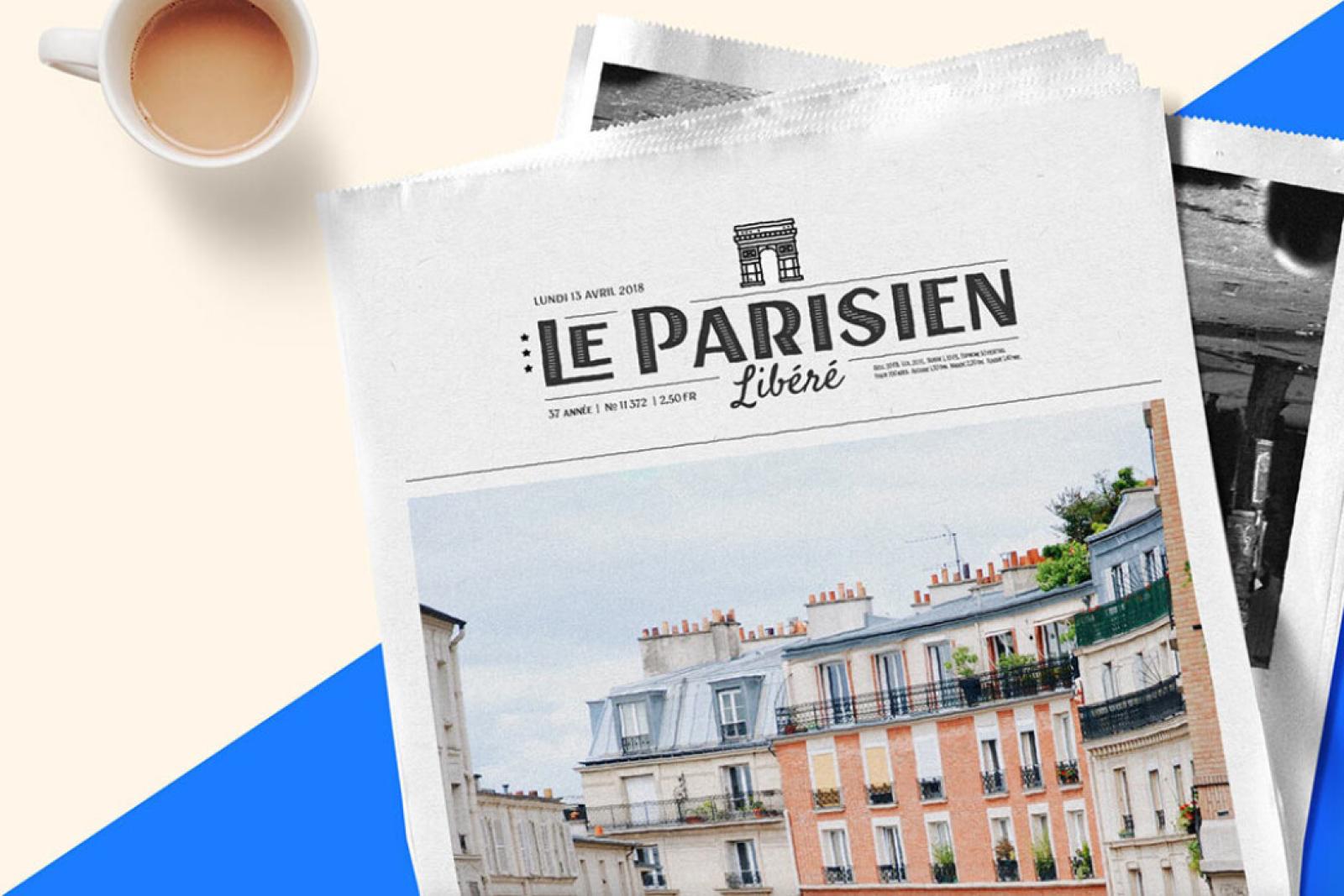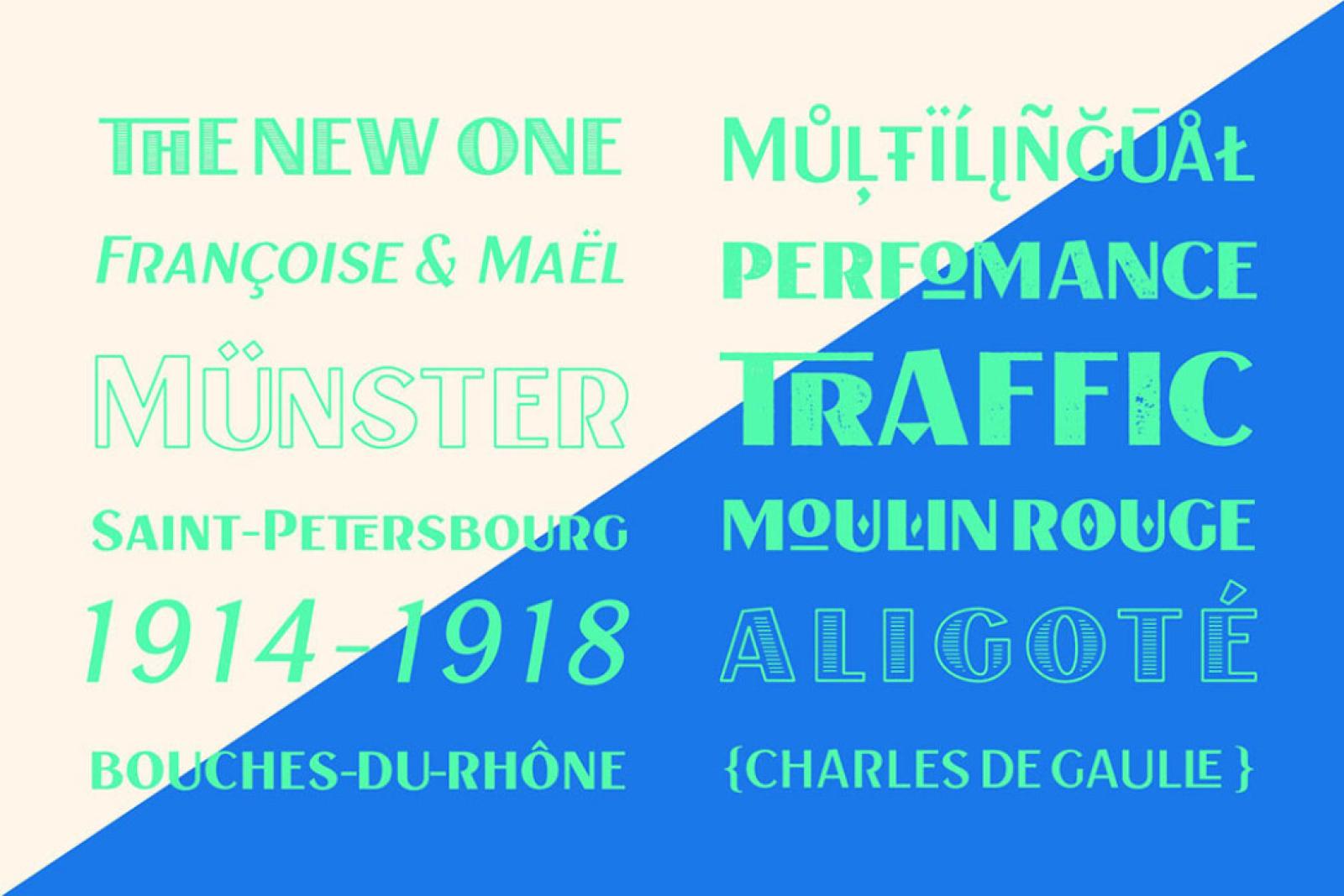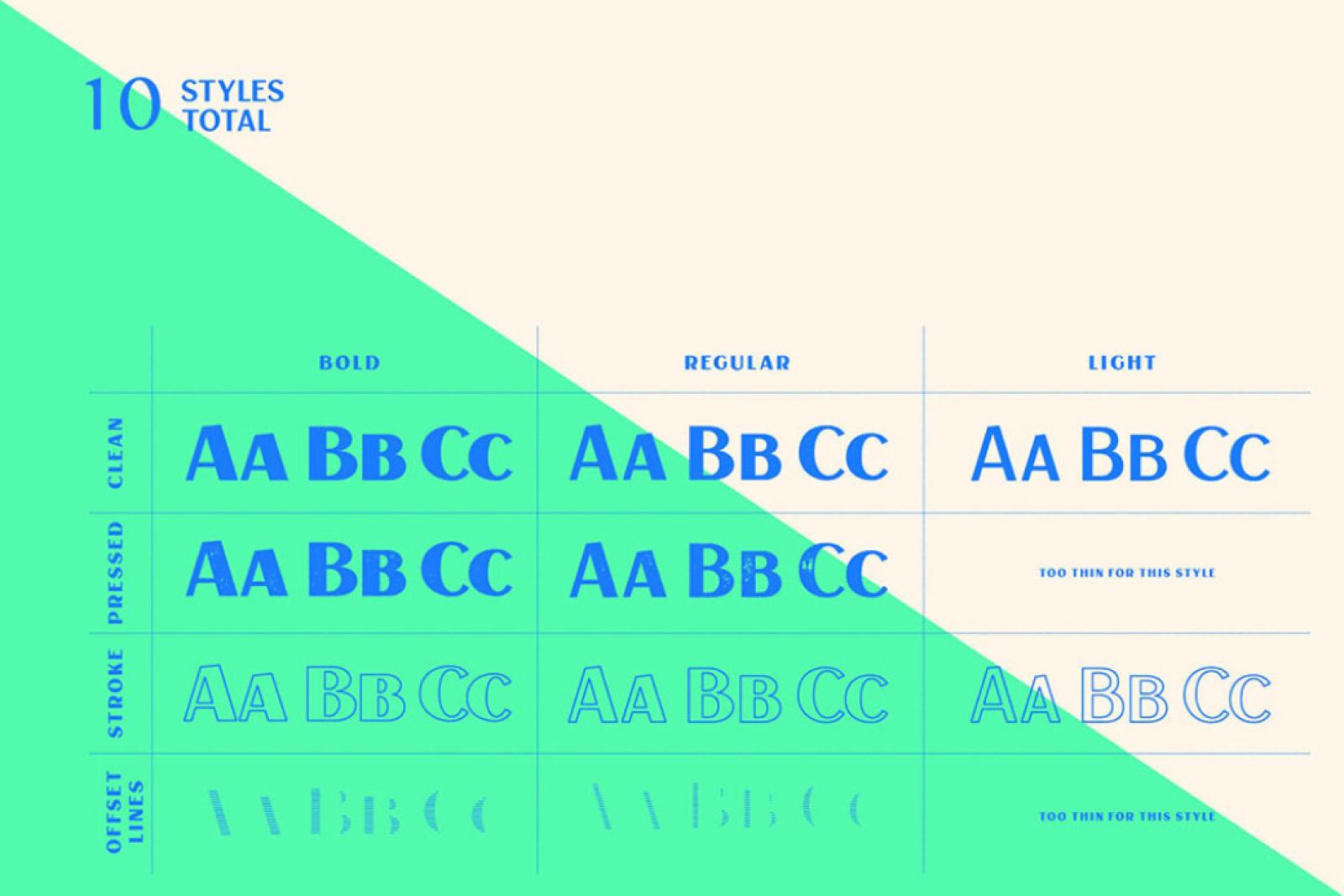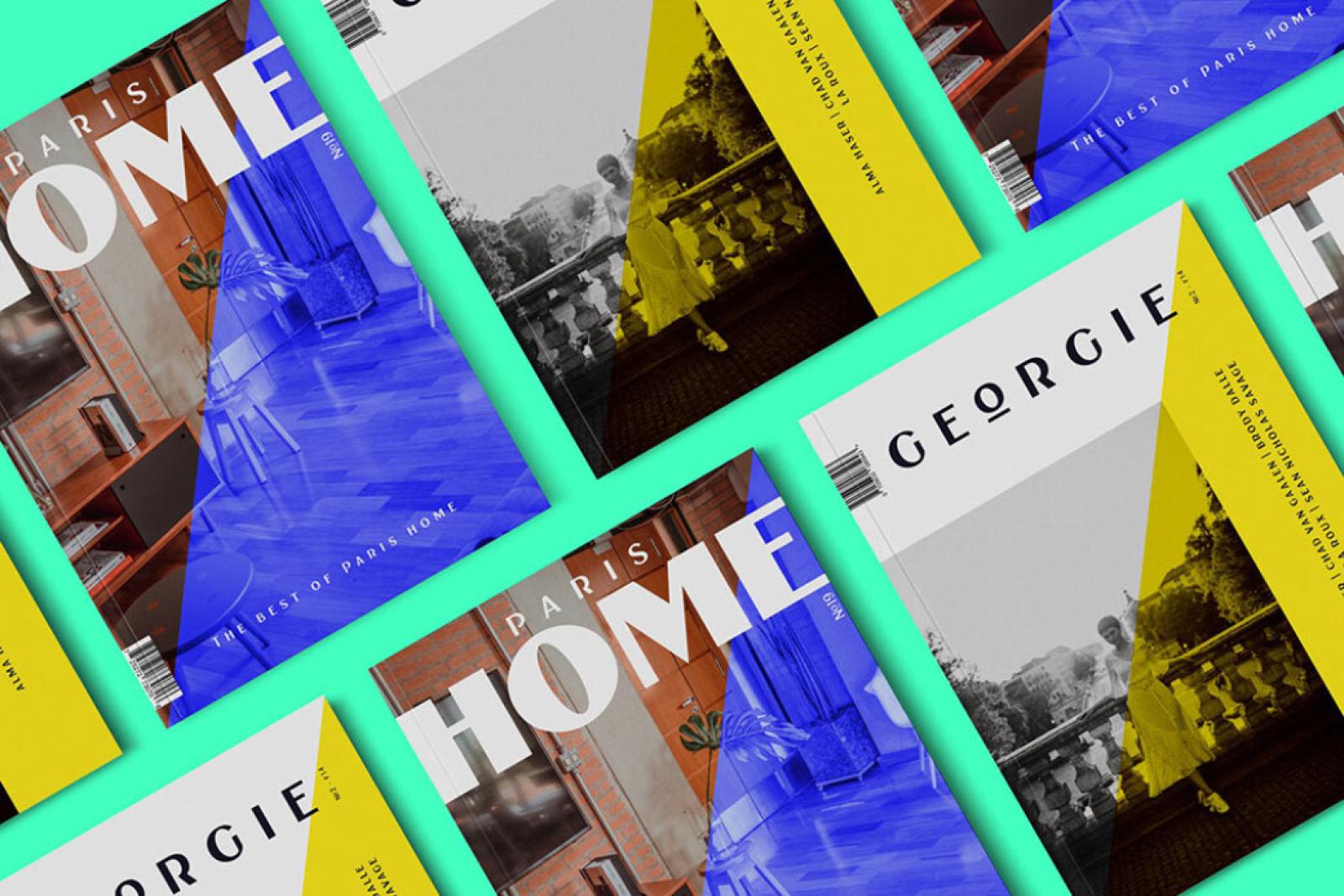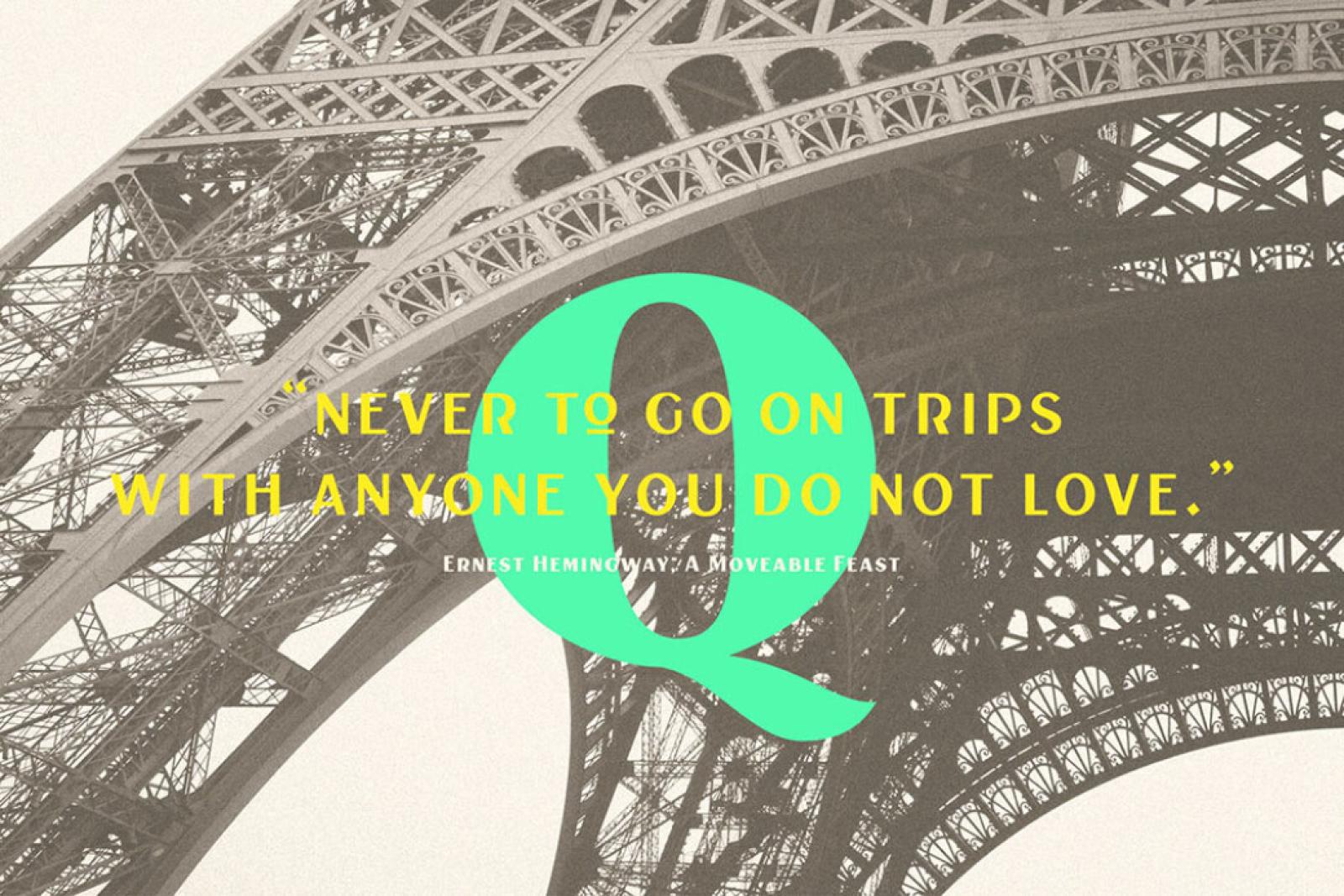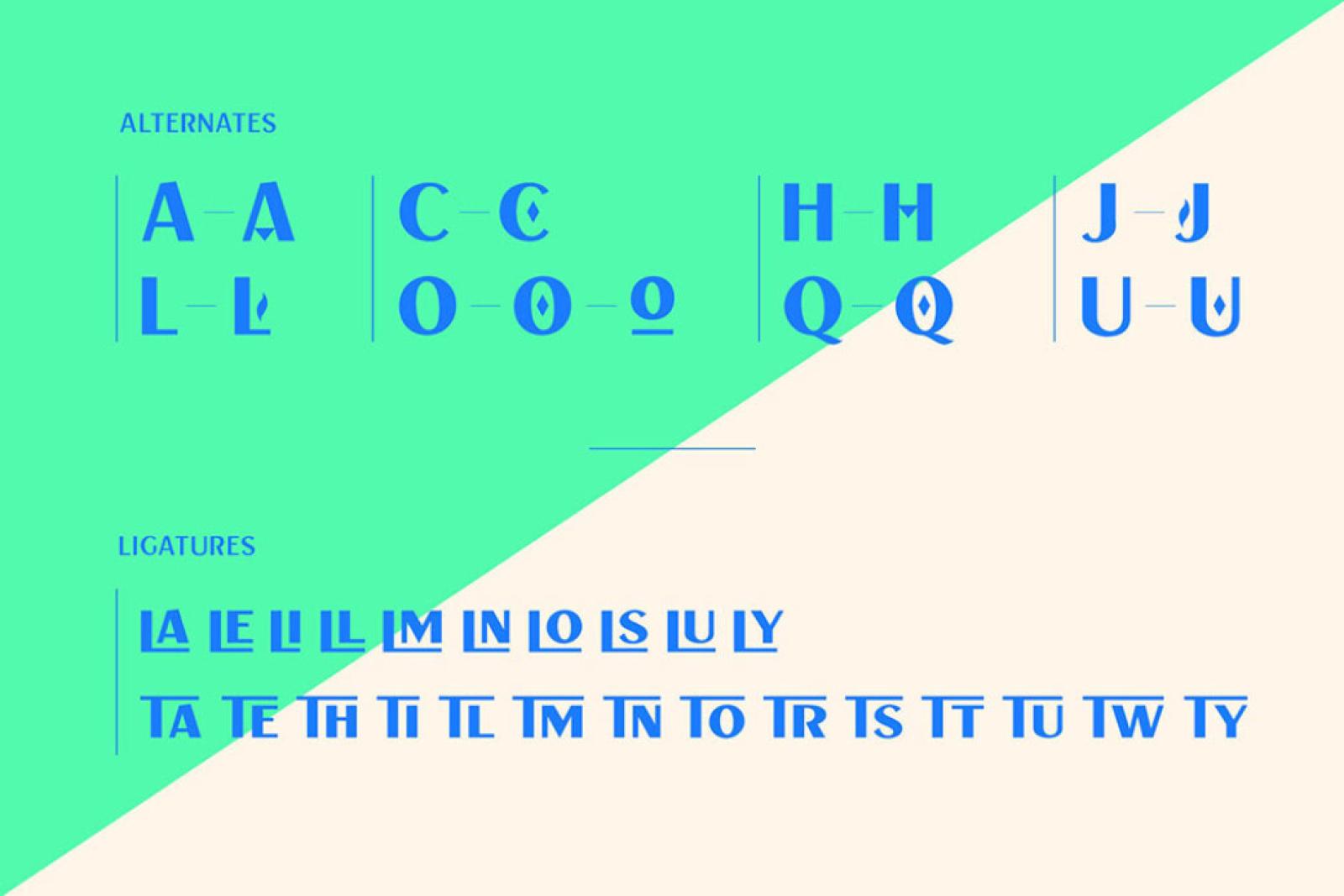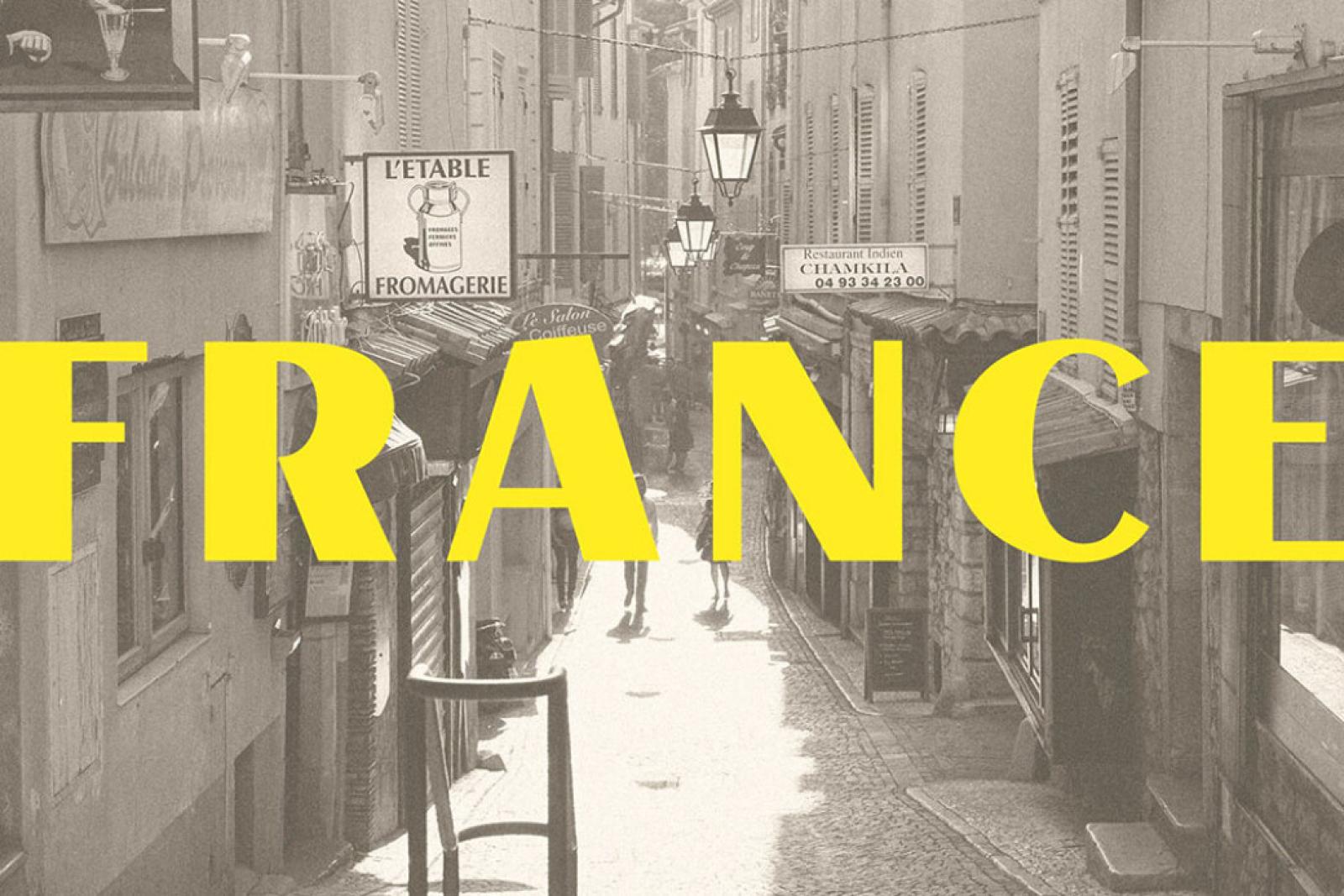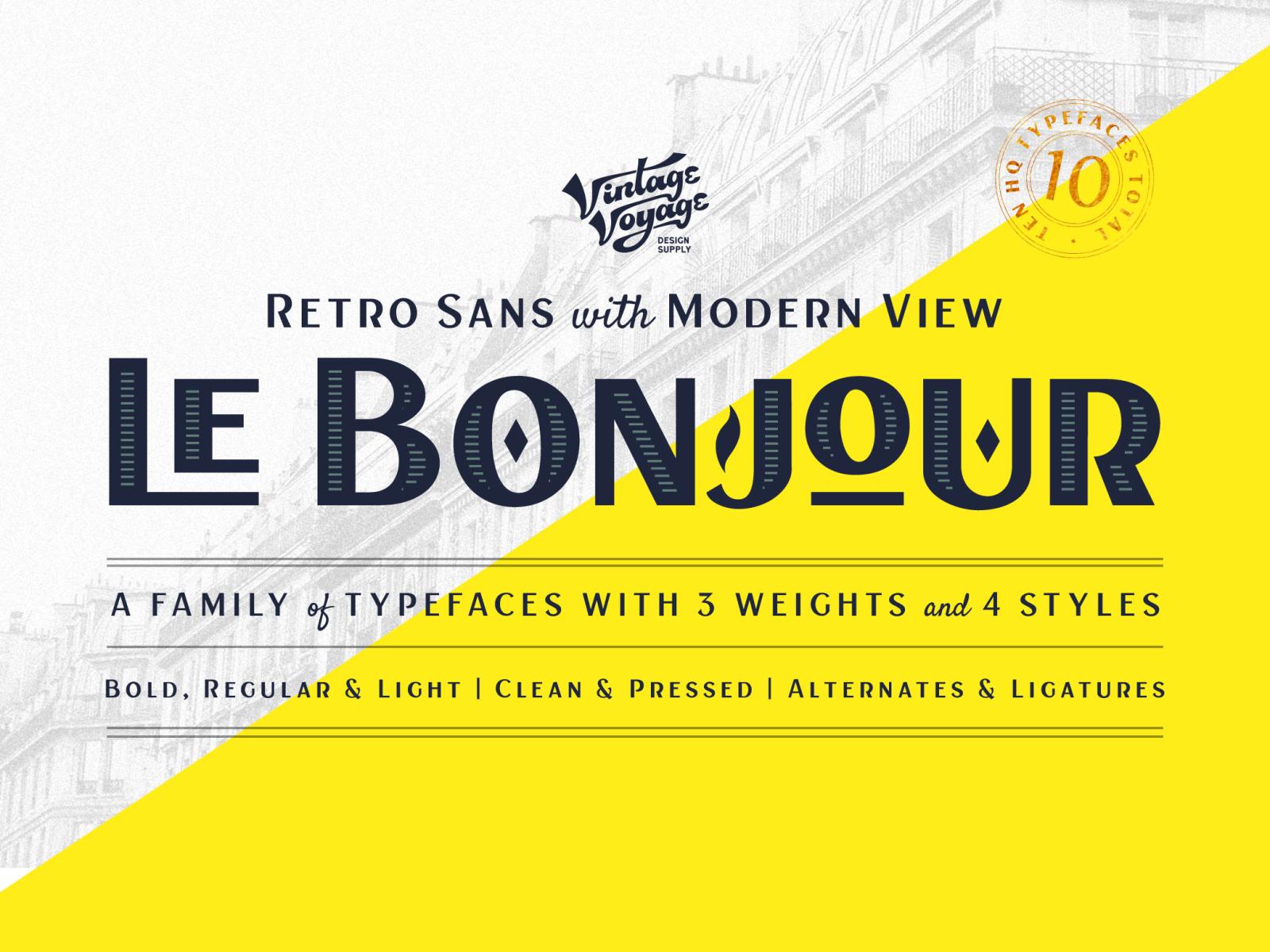
Le Bonjour Font Family
Here's sans serif saying its elegant 'Bonjour' with every single stroke. Oh, and there's a whole font family at your service, ready to become the gold of your collection!
Classic retro sans with modern tones, where contrasting vertical and horizontal lines are coexisting in harmony. This kit can be anything you want: the source of bold and elegant or light and airy style. Le Bonjour has three widths: Bold, Regular and Light. You'll be delighted to discover French mid-century spirit of alternate underlined O, ligatures for L-pairs and T-pairs letters and some decorative alternates for A, C, H, J, O, Q, and U. Now your headers, logotypes, banners, and branding will have that distinctive trait, singling it out from others!